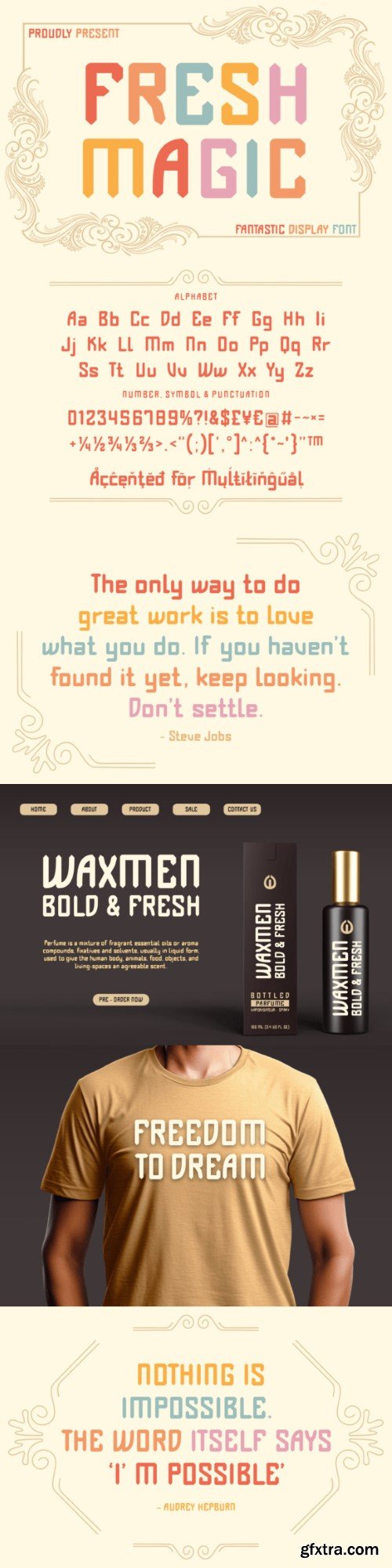
新鲜魔法字体
Fresh Magic is a cute and friendly display font that enchants designs with whimsical charm. Its playful letterforms, adorned with magical elements, create a delightful and lighthearted aesthetic. Ideal for projects seeking a dynamic and enchanting vibe, Fresh Magic adds a magical and lively flair to your creative expressions.